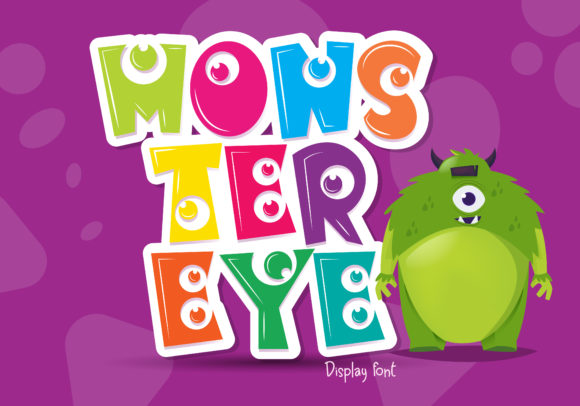
Dive into the whimsical world of Monster Eye Font, a delightful display font brimming with charm and character. Created by the renowned BB Type Studios, this font is an artistic masterpiece that will add a touch of playfulness and personality to your designs.
Picture this: a delightful dance of letters, each one bursting with energy and vitality. Monster Eye's captivating curves and playful shapes will instantly grab attention, making your designs stand out from the crowd. It's a font that speaks to the child within us, evoking a sense of nostalgia and wonder.
Unleash your creativity with Monster Eye's boundless versatility. Whether you're designing funny mugs, eye-catching posters, or vibrant social media graphics, this font is your perfect companion. Its cheerful and friendly nature makes it suitable for a wide range of projects, from playful invitations to whimsical branding materials.
With Monster Eye, you have the power to transform the ordinary into the extraordinary. Its unique and captivating style will elevate your designs to new heights, leaving a lasting impression on your audience. It's the perfect font for those who dare to be different, who embrace the power of creativity and imagination.
So, embark on this enchanting journey with Monster Eye Font, and let your designs take center stage. Prepare to be amazed as your creations come to life, filled with joy, laughter, and an irresistible charm that will leave your audience captivated.